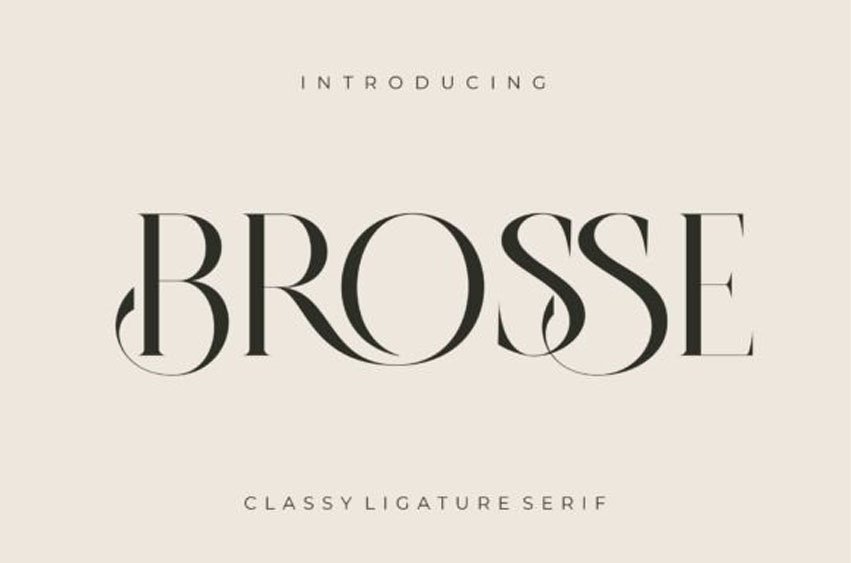
Brosse Font is a classy, ligature serif typeface, inspired by the famous minimalist logo perfect for the purposes of designing templates, brochures, videos, advertising branding, logos, invitation, layout design, elegant crafting, beauty design and other projects.
Crafted with high attention to detail, it gives you the best design experience.